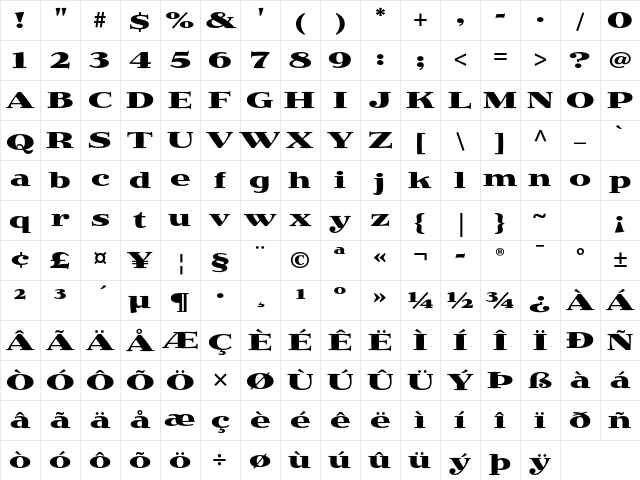
Jimbo Std Bold Expanded
Style: Bold Expanded
Designer: Jim Parkinson
Complete Jimbo Std Bold Expanded glyph index. Displaying only characters natively supported by Jimbo Std Bold Expanded font.
Design Context for Jimbo Std
Jimbo Std is a composed and adaptable typeface that performs quietly and consistently across a wide range of design contexts. Its bold stroke weight gives it real presence on the page.